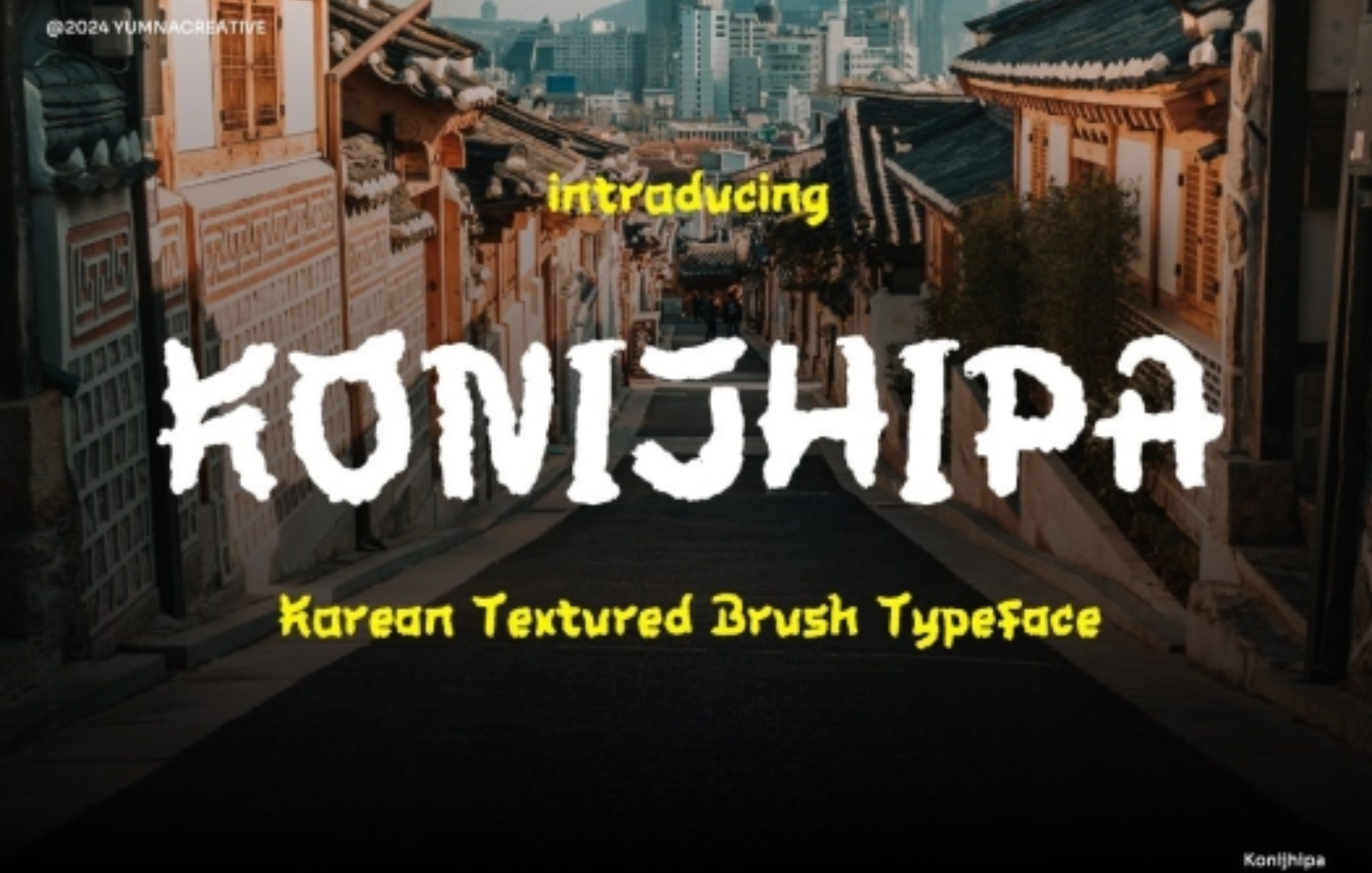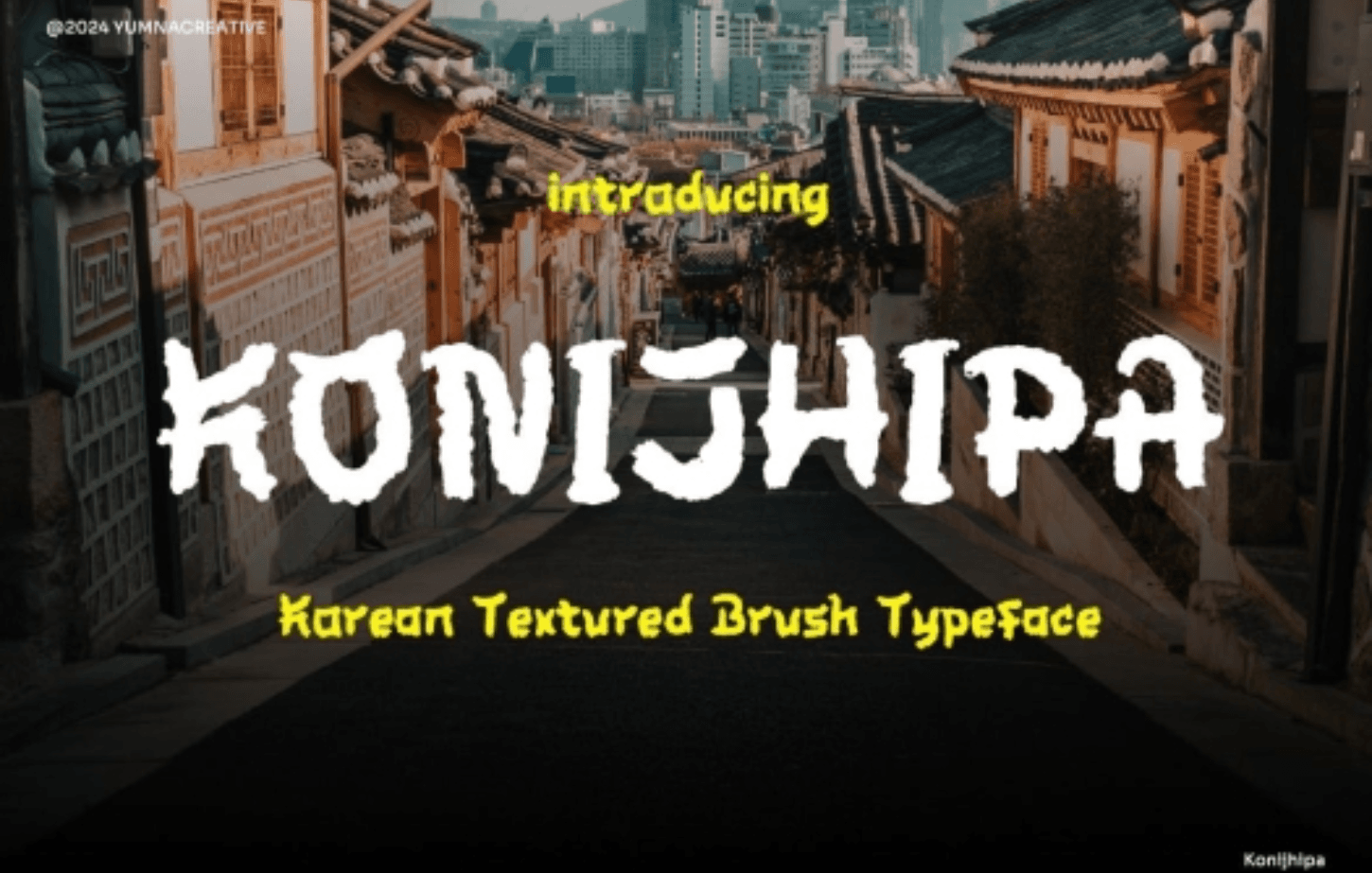
Konijhipa – Korean Texture Font
Classification: N/A
Spacing: Normal
Optimum Size: Large (Display / Poster)
The alluring charm of Konijhipa – Korean Texture Font, a captivating addition to any designer’s toolkit. This font exudes a delicate and elegant aura with its flowing handwritten style. Infused with a unique blend of ligatures, each letter seamlessly intertwines to create a modern and swirly look that sets it apart. Elevate your design projects with this font and witness how it breathes life into your most creative concepts, adding a touch of elegance and uniqueness to your work.